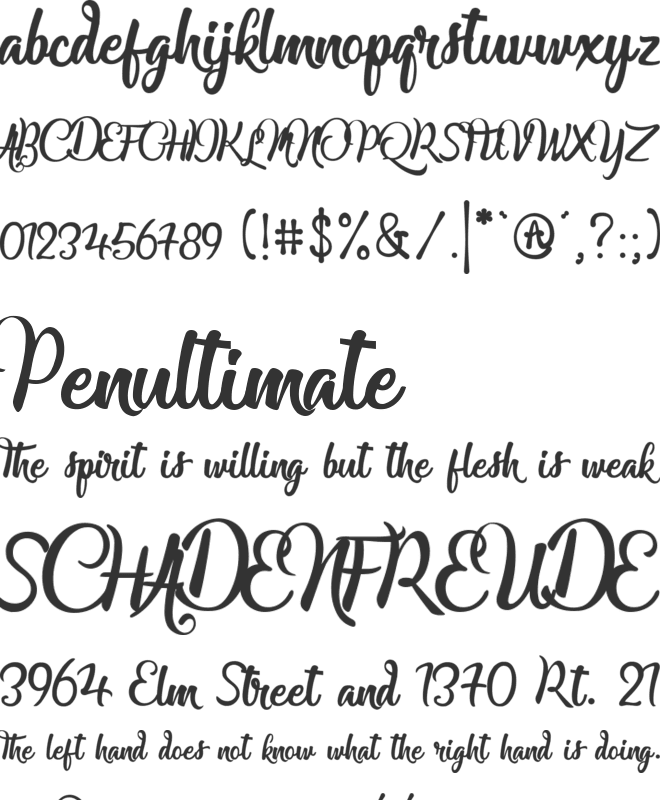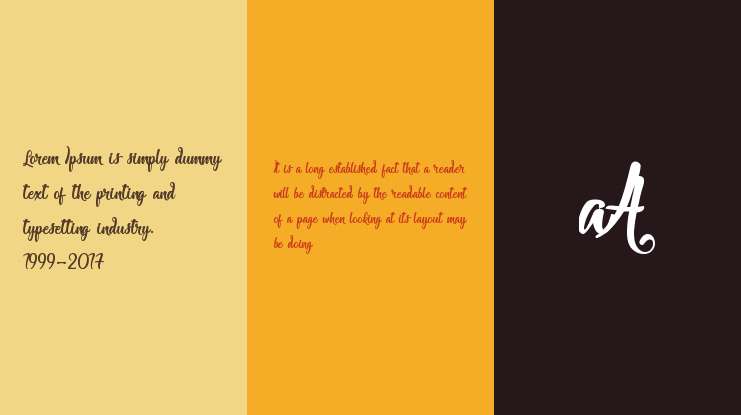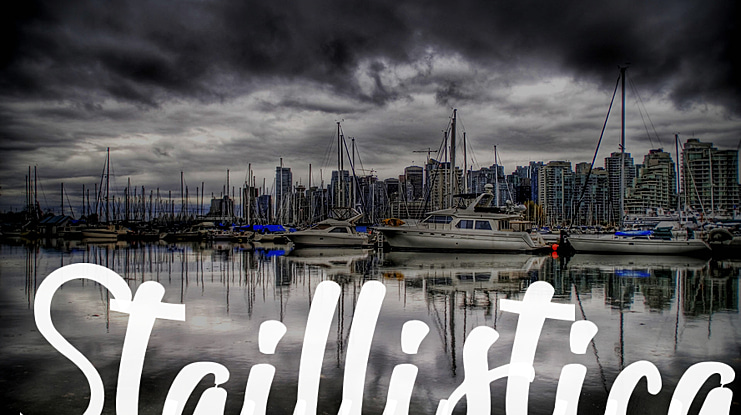
Staillistica Font Family
Staillistica Script Font. A collection of letters and numbers suitable your projects also great for Logotype, Branding Design, Logo Design, Digital Lettering Arts, T-Shirt/Apparel, Poster, Magazine, Signs, Advertising Design, and any design needs.